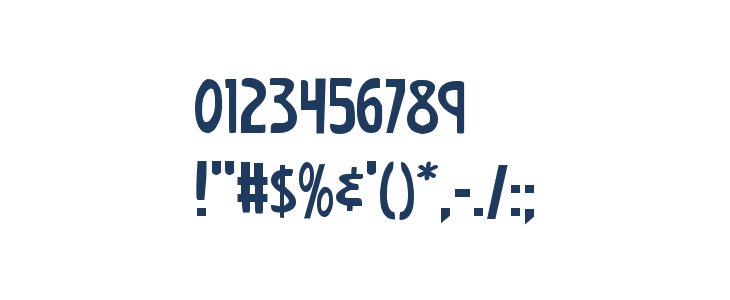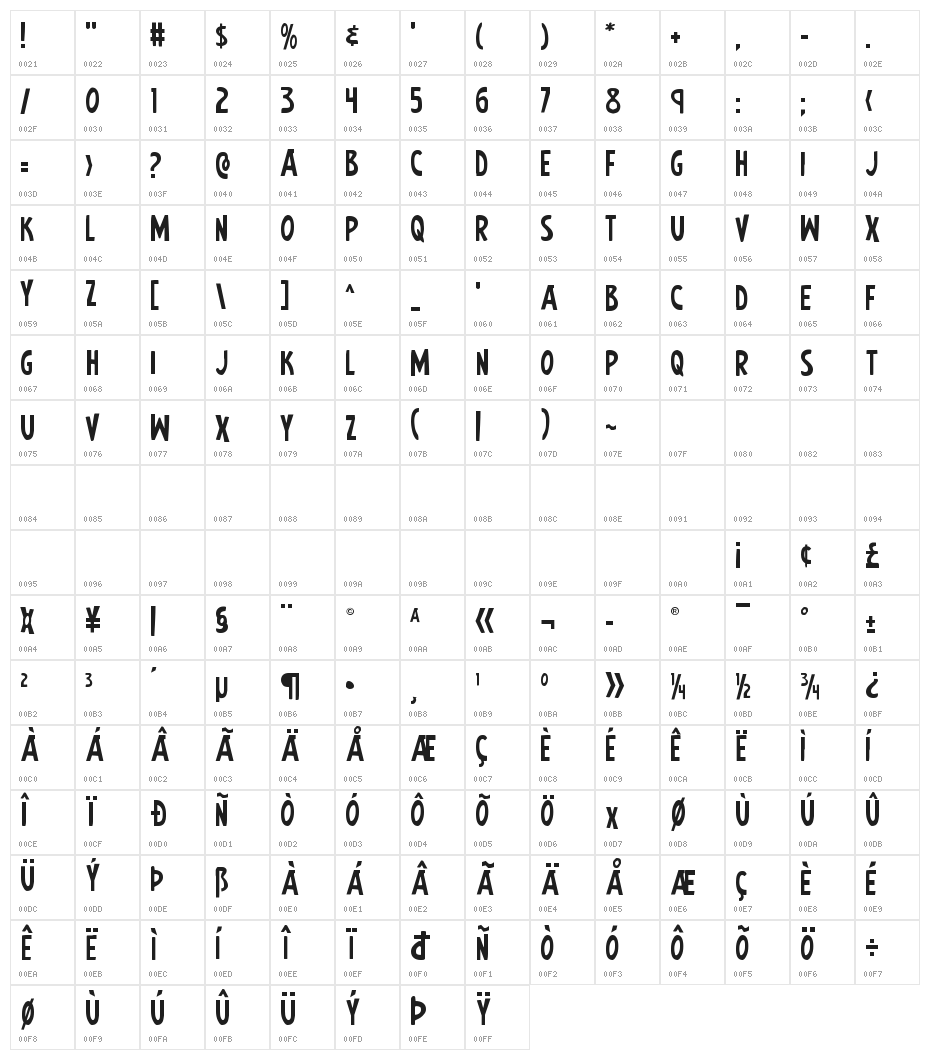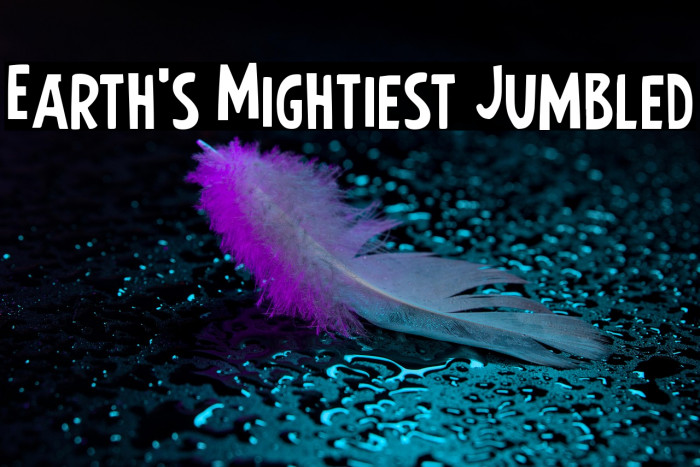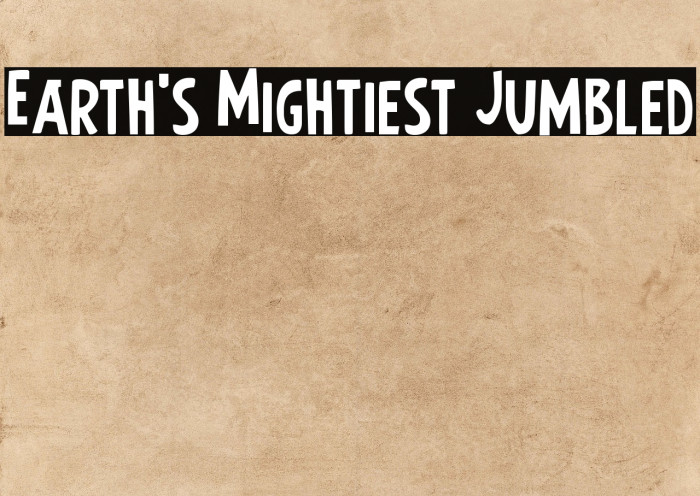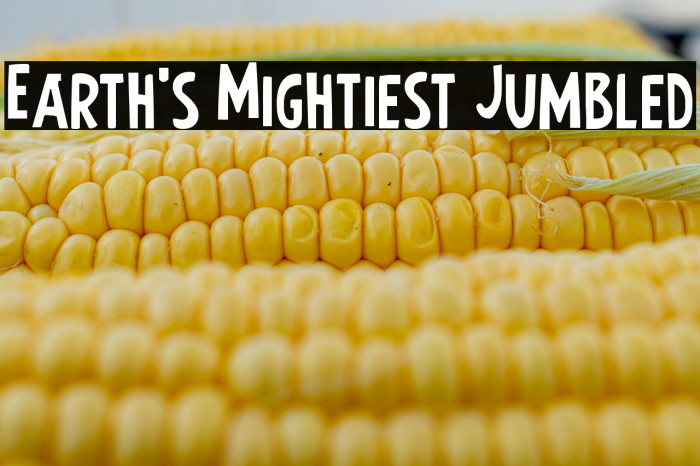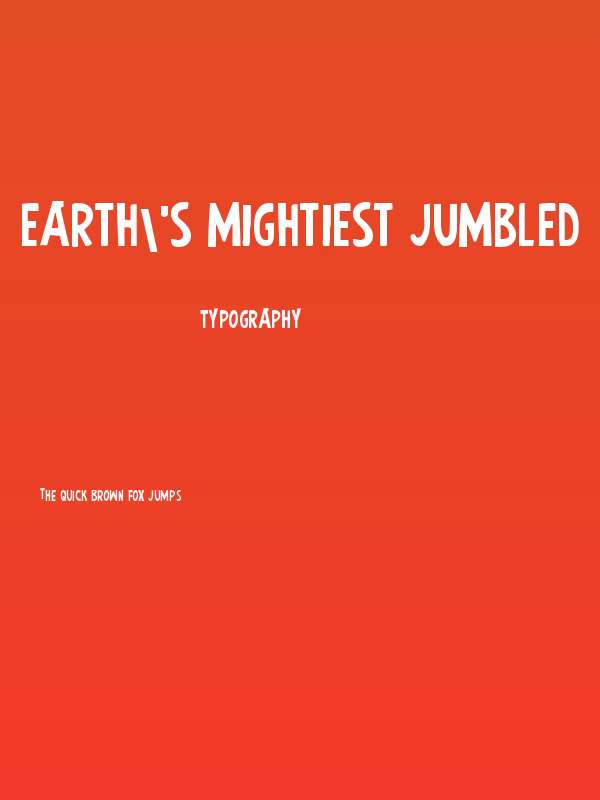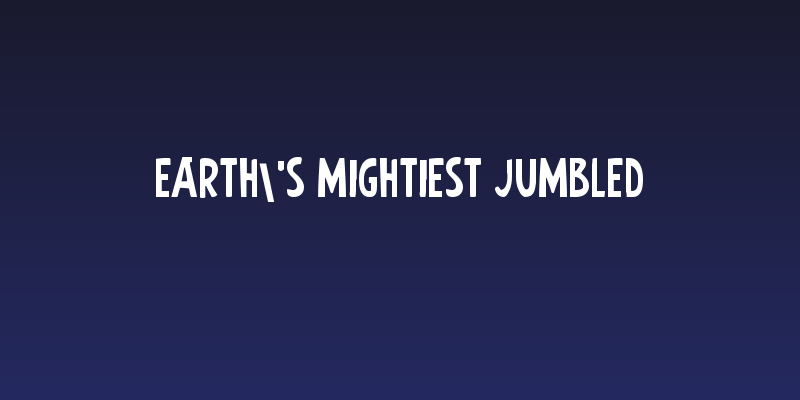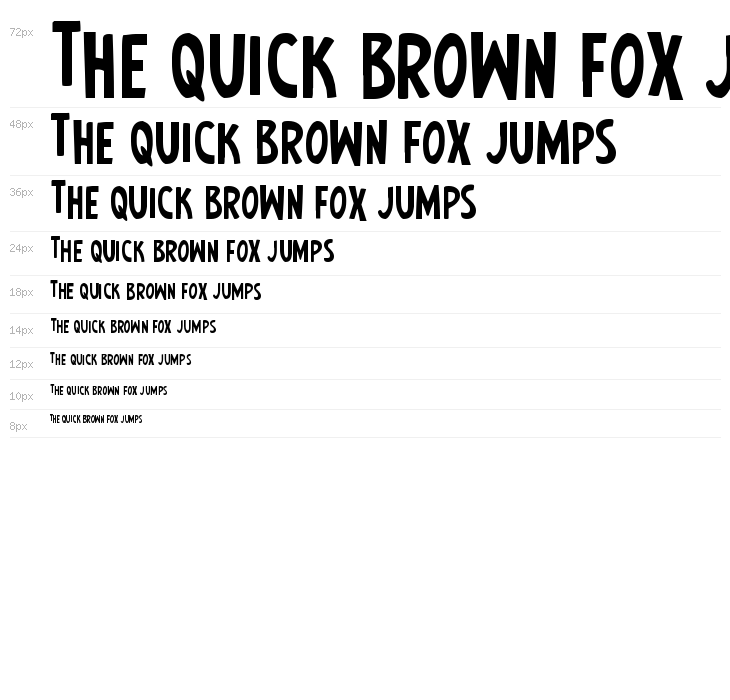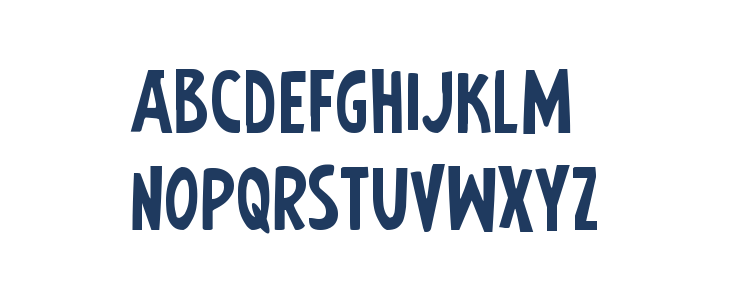
Earth's Mightiest Jumbled Font
Earth's Mightiest Jumbled Description
This font features bold, playful characters with a slightly irregular, hand-drawn appearance. The uppercase letters are robust and dynamic, with a slight tilt that adds a sense of movement and energy. The lowercase letters maintain a consistent style, complementing the uppercase with their rounded forms and slightly exaggerated curves. Numbers are clear and bold, ensuring readability. Special characters are designed with the same playful style, making them stand out. The overall look is informal yet impactful, perfect for designs that require a touch of whimsy and boldness.
Overall StylePlayful, Energetic
Proposed ProjectsIdeal for comic books, children's books, playful branding, posters, and creative projects that require a fun and energetic typeface.